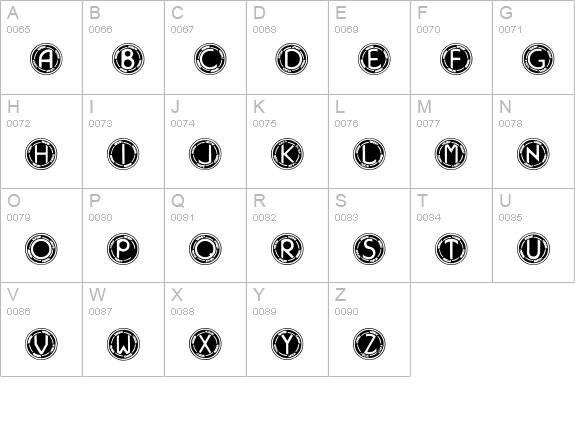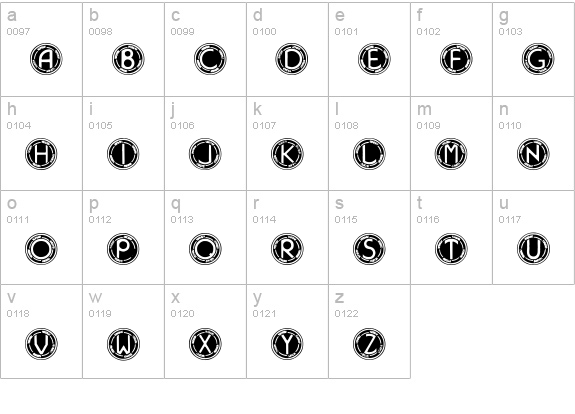
NavyBlues font is a modern and sleek typeface that exudes sophistication and elegance. Its clean lines and stylish curves make it perfect for a wide range of design projects, from branding to editorial design. The NavyBlues font features a unique blend of classic and contemporary elements, making it versatile and eye-catching. What sets NavyBlues font apart is not only its timeless design but also the fact that it is available for free download at FontsMarket.com. This means that you can easily access this high-quality font without any cost, making it a valuable addition to your font library. Whether you're a seasoned designer looking to add a fresh touch to your projects or a beginner exploring different typography options, NavyBlues font is a fantastic choice that won't break the bank. With its bold and elegant style, NavyBlues font is sure to make a statement in any design project. Download it for free today at FontsMarket.com and elevate your designs with this stunning typeface.